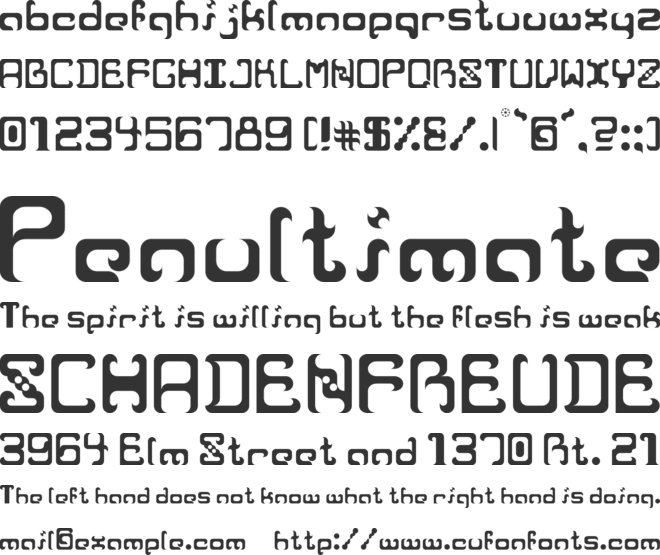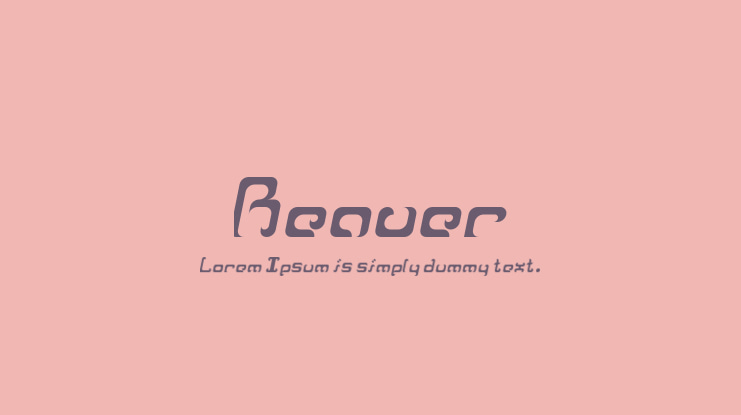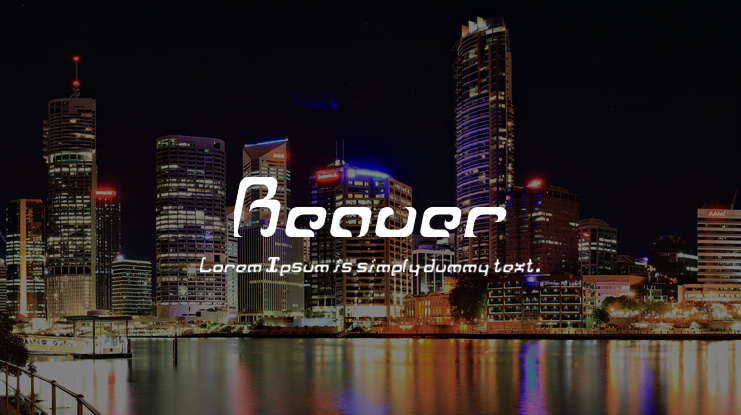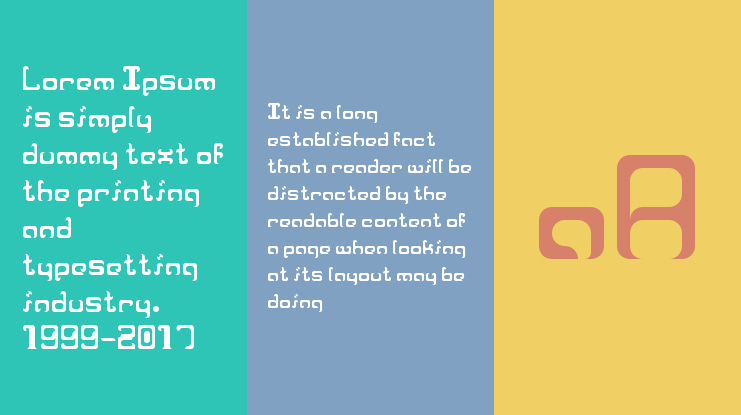
Reaver Font Family
Reaver is my attempt to create a horror or bestial font that doesn't conform to the traditional sterotypes of either. A few have called it Geigeresque, and an earlier name for this font - Chupacabra - also inspired.